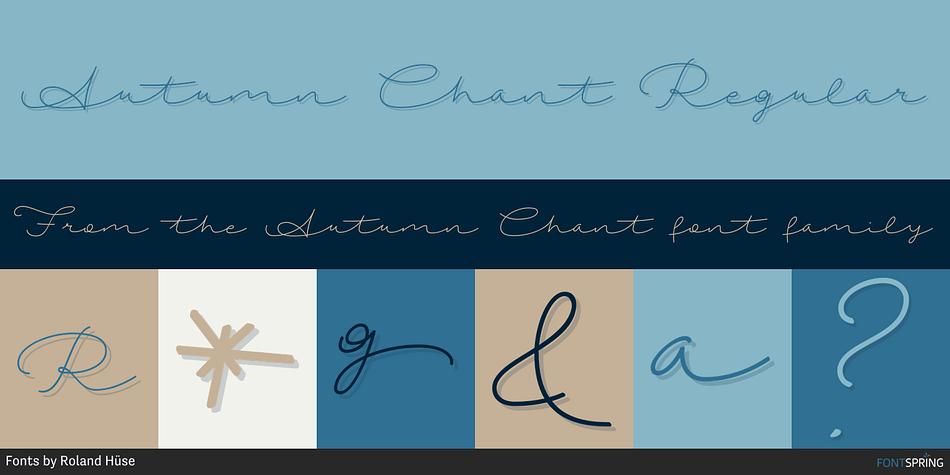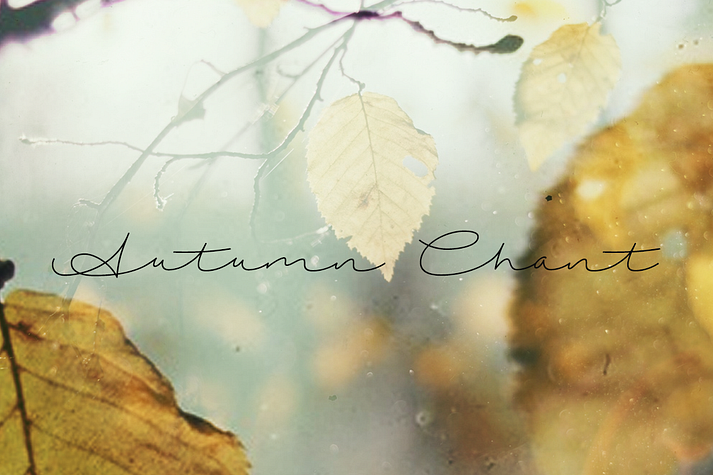
Autumn Chant Regular
Autumn Chant is a font family published by Fonts by Roland Hüse.
Autumn Chant is a handwritten, casual monoline script. The handwriting interpretation of lowercase "k" might be a little confusing for some, as the way I form it looks a bit like American style "r" so there is a stylistic alternate for that glyph if you enable "stylistic alternates" open type feature or select substitute glyphs manually for example in photoshop.